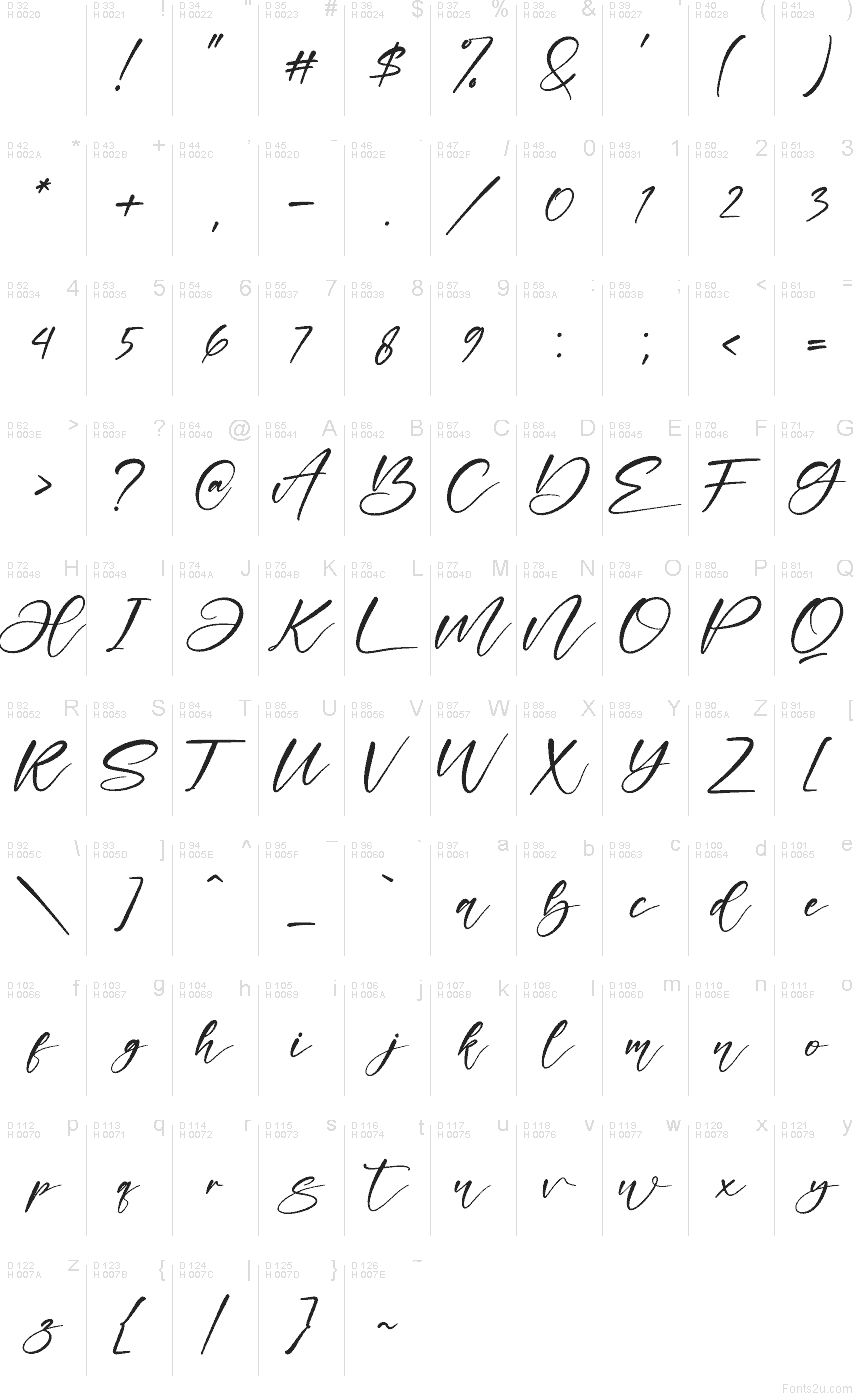
Melati font by Letterena Studios is a free handwritten script typeface with a romantic, ink-on-paper feel. Its long, sweeping strokes and gentle curves look like they were written with a flexible brush pen, giving every word a soft, flowing rhythm. The letters connect in a graceful line, with airy spacing that lets the script breathe instead of feeling cramped or fussy.
Using Melati, this free font shines on wedding invitations, save-the-dates, elegant logos, boutique packaging, Instagram posts, and heartfelt quote graphics. Its smooth, looping forms instantly add warmth and femininity, especially at larger sizes where the curves can really show off. For a balanced layout, pair Melati with a simple sans serif for supporting text and let the script handle names, headlines, or key phrases.